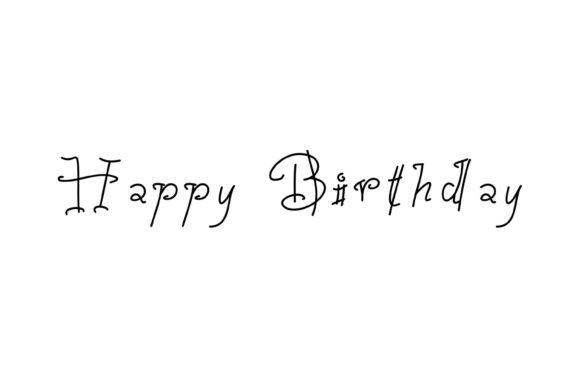
The Irresistible Charm of the Happy Birthday Font
There are typefaces that demand attention through sheer force, and then there are those that invite you in with a warm, familiar gesture. The Happy Birthday Font belongs firmly in the latter category. At first glance, it feels like a note passed between friends or a message scrawled on a celebration card. This is a handwritten font that doesn't try to be overly artistic or illegible. Instead, it strikes a beautiful balance: it is a cute and simple lettered style that retains the organic imperfections of human touch while maintaining the clarity needed for professional design work. If you are a designer or entrepreneur looking to add a layer of genuine personality to your toolkit, this premium font offers a versatility that belies its playful appearance.
Visual Personality and Style
Understanding the anatomy of the Happy Birthday Font helps in deploying it effectively. It is not a rigid script font with complex swashes that require a magnifying glass to decipher. Instead, it embraces a modern, casual aesthetic. The letterforms often feature varying baselines and slightly uneven strokes, mimicking the natural rhythm of a hand holding a marker or brush pen. This irregularity is its strength; it injects life and movement into static text.
In the world of modern typography, "authenticity" is the currency. Audiences are increasingly numb to the sterile perfection of geometric sans-serifs. They crave connection. When you use a typeface like this, you are signaling that your brand or project has a human element. The visual character is approachable and energetic. It avoids the stiffness of corporate communication, making it an ideal candidate for projects where warmth and relatability are paramount. Whether you are working on a logo for a local bakery or headers for a lifestyle blog, the font acts as a visual voice that speaks directly to the viewer's emotions.
Strategic Applications Across Industries
One of the most common mistakes creatives make is using a display font like the Happy Birthday Font for body text. This typeface is designed to shine in headlines, logos, and accent text. Its true power lies in visual hierarchy. By using it for your H1 headers or pull quotes, you instantly draw the eye and break up the monotony of standard body copy.
Branding and Packaging
For small business owners and entrepreneurs, brand identity is everything. If you are in the business of selling joy—think bakeries, event planning, children’s clothing, or artisanal crafts—this font can become the cornerstone of your visual identity. In packaging design, a handwritten aesthetic suggests a product made with care. Imagine a jam jar label or a gift box ribbon printed with the Happy Birthday Font. It immediately elevates the perceived value by making the product feel bespoke rather than mass-produced.
Digital Presence and Marketing
In the realm of social media graphics, attention spans are short. A bold, friendly header written in the Happy Birthday Font can stop the scroll. It works exceptionally well for Instagram stories, Pinterest pins, and Facebook ads where you want to convey excitement or a special announcement. For web design, it adds a splash of personality to hero sections or "About Us" pages, bridging the gap between a digital interface and a human experience.
Content creators and bloggers will also find immense value here. It serves as a perfect counterpoint to clean sans serif fonts. If your body text is a neutral Helvetica or Open Sans, using the Happy Birthday Font for your blog post titles creates an inviting contrast that defines your digital voice.
Technical Considerations and Font Pairing
A creative font is only as good as its context. To get the most out of the Happy Birthday Font, you need to consider how it interacts with other design assets.
The Art of Font Pairing
The golden rule of font pairing is contrast. Because the Happy Birthday Font has a distinct personality and texture, it pairs best with something neutral and structured. A clean sans serif font is usually the safest bet. The sans-serif provides the stability and readability for longer paragraphs, while the Happy Birthday Font provides the flair for headlines.
However, don't be afraid to experiment with a serif font. A classic, elegant serif can sometimes create a sophisticated yet playful juxtaposition, particularly in editorial design or high-end lifestyle branding. The key is to test the x-height and weight. Ensure the handwritten font doesn't overpower the elegance of the serif, or vice versa.
Readability and Legibility
While the Happy Birthday Font is designed to be legible, remember that all handwritten fonts have limits. Avoid using it for legal disclaimers, long-form body text, or critical technical information. Its strength is emotional, not informational. Always test your designs at the size they will be viewed. A font that looks great on a 27-inch monitor might become a blurry mess on a mobile screen if the kerning is too tight or the strokes are too thin.